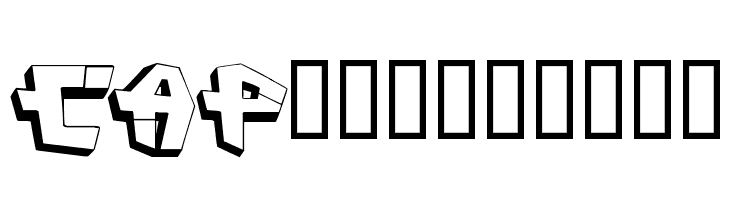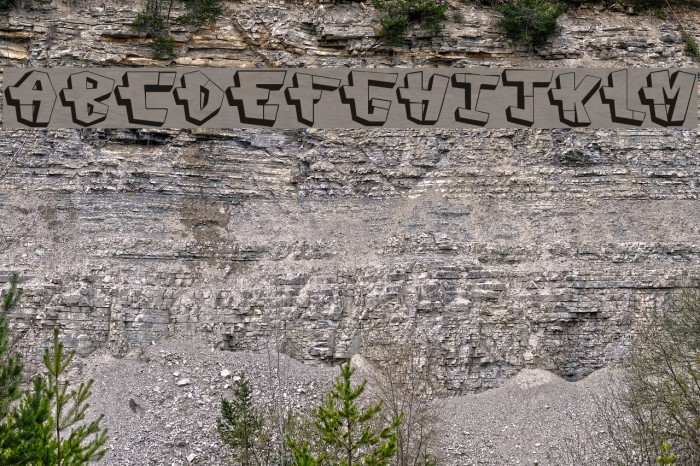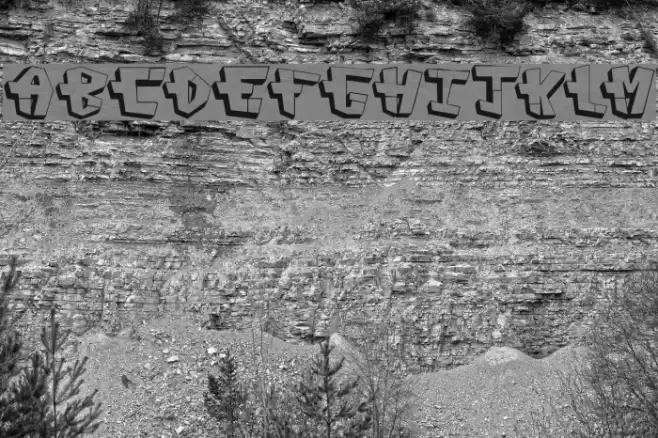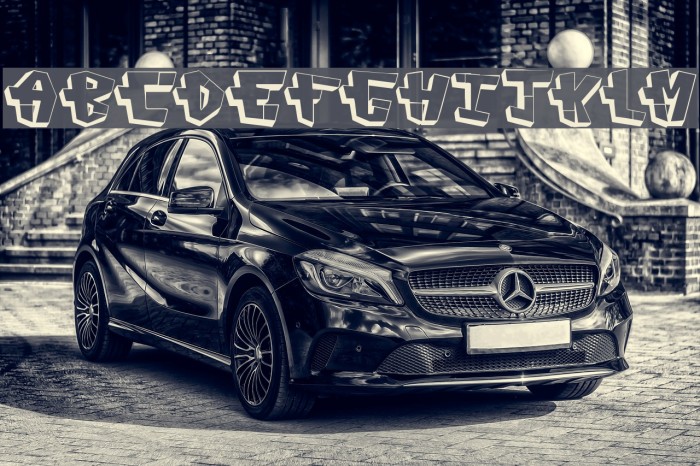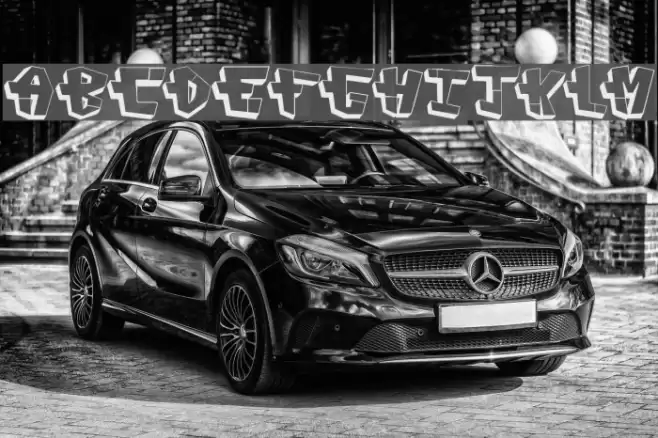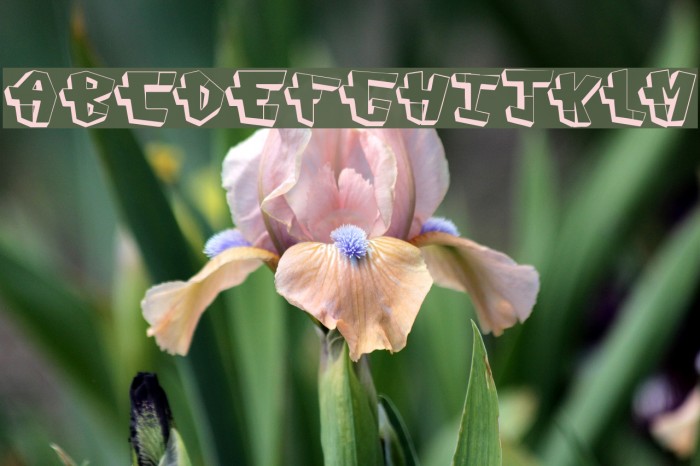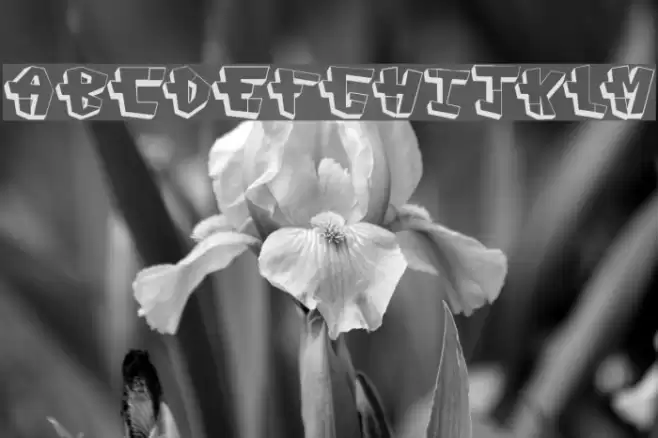
CAPconstruct Font
CAPconstruct Description
This font exhibits a bold, three-dimensional graffiti style with a strong urban influence. The uppercase letters are characterized by thick, angular strokes and a shadow effect that gives them a dynamic, popping appearance. The design is highly decorative, with each letter appearing as if it has been carved out of a solid block, creating a sense of depth and movement. The font's playful and edgy aesthetic makes it stand out, ideal for projects that require a bold statement. The absence of lowercase letters and numbers suggests a focus on impactful headlines or titles.
| Overall Style | Modern, Urban |
| Proposed Projects | Ideal for street art designs, urban-themed posters, music album covers, and event flyers. |